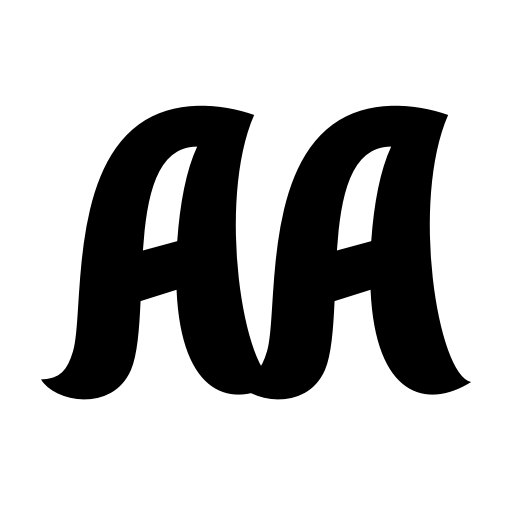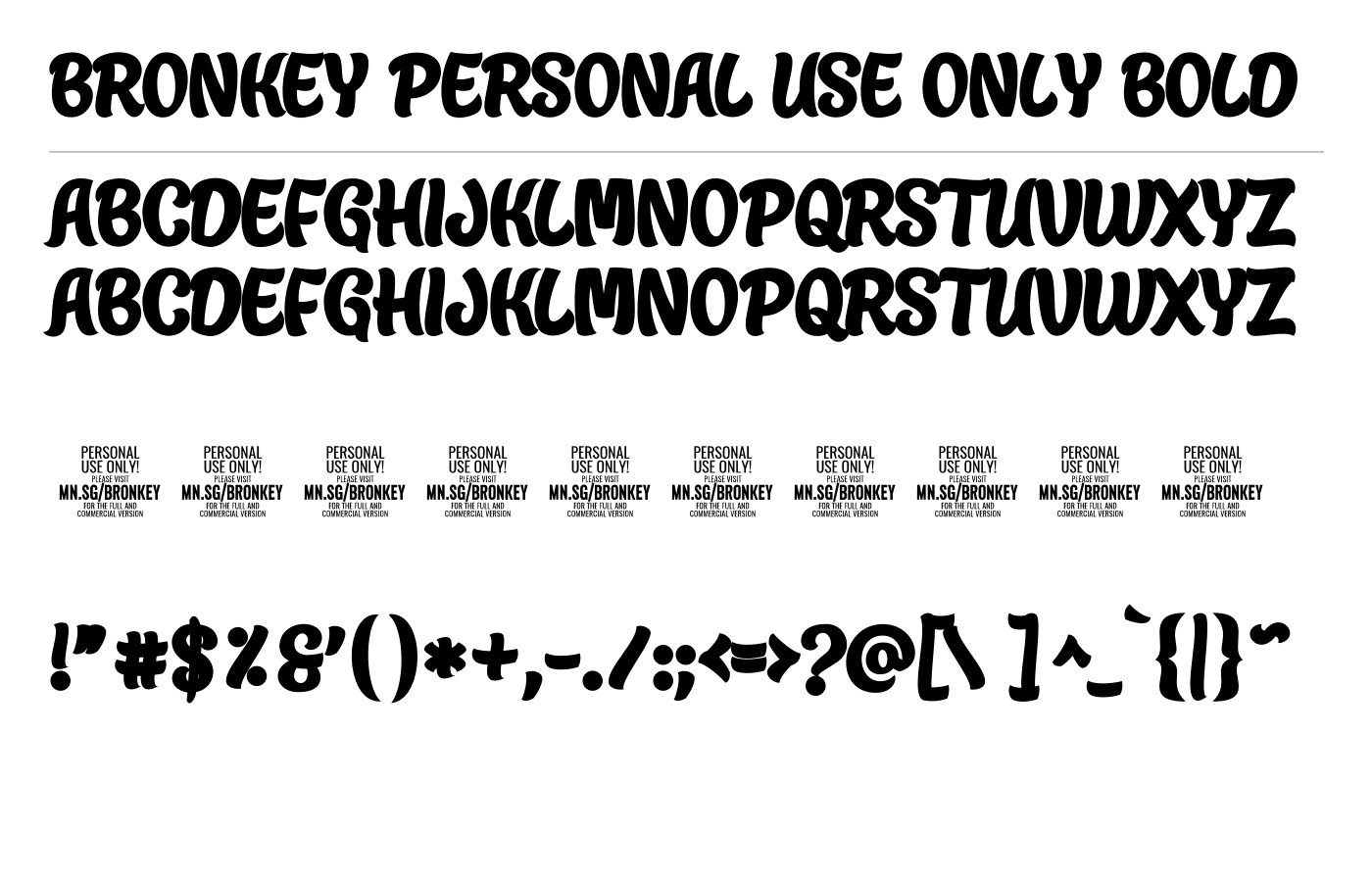
Bronkey is a bold, playful display font with rounded, chunky letterforms that convey a fun and energetic vibe. Its thick strokes and casual, hand-drawn style make it perfect for eye-catching headlines, logos, and creative projects that want to exude friendliness and approachability. This font works best in informal contexts where a lively and distinctive personality is needed.